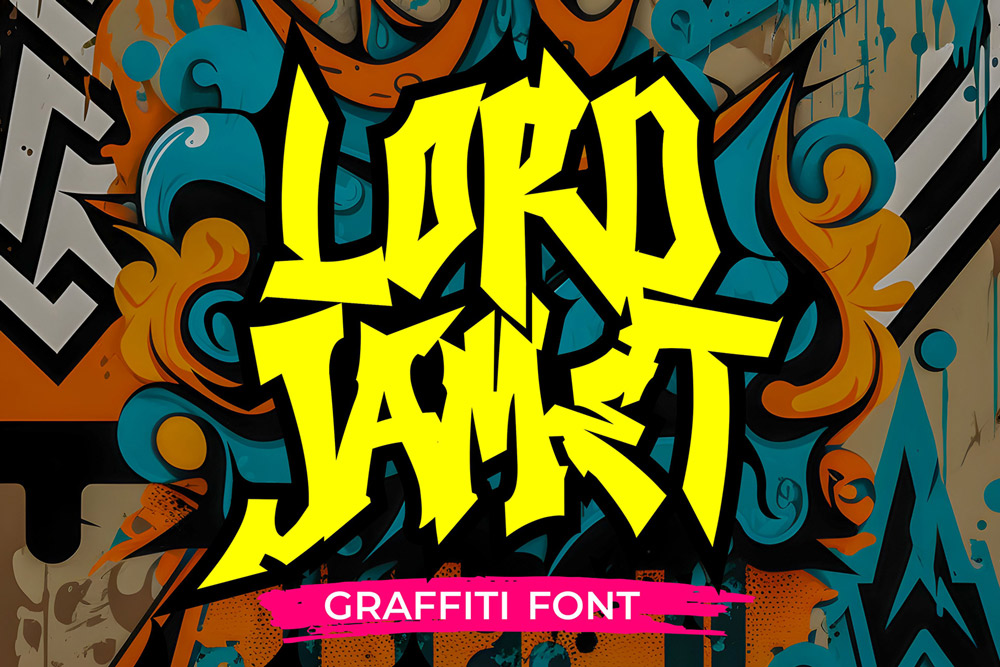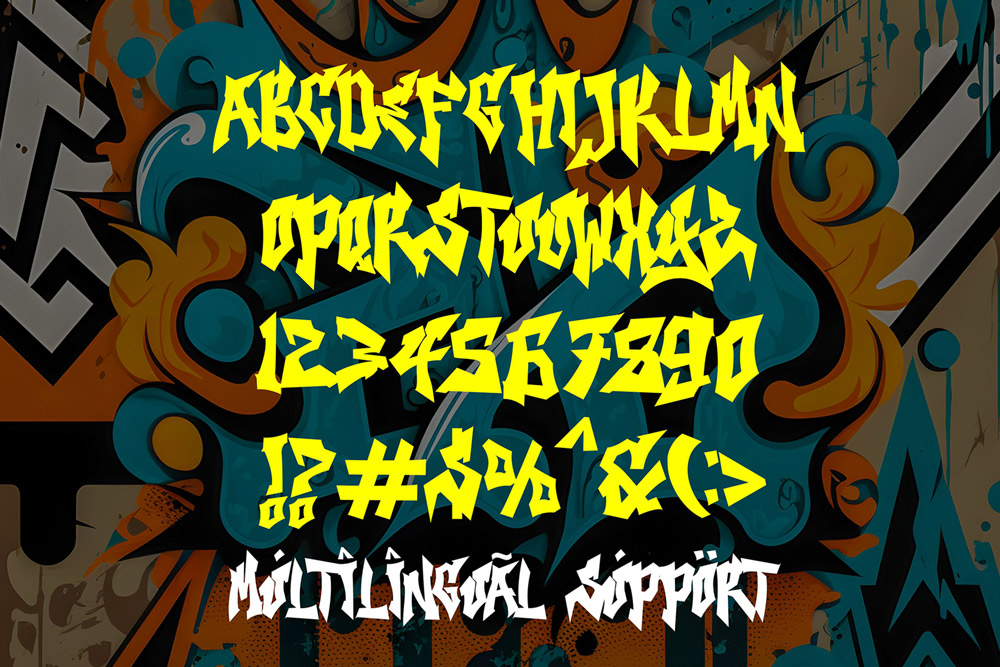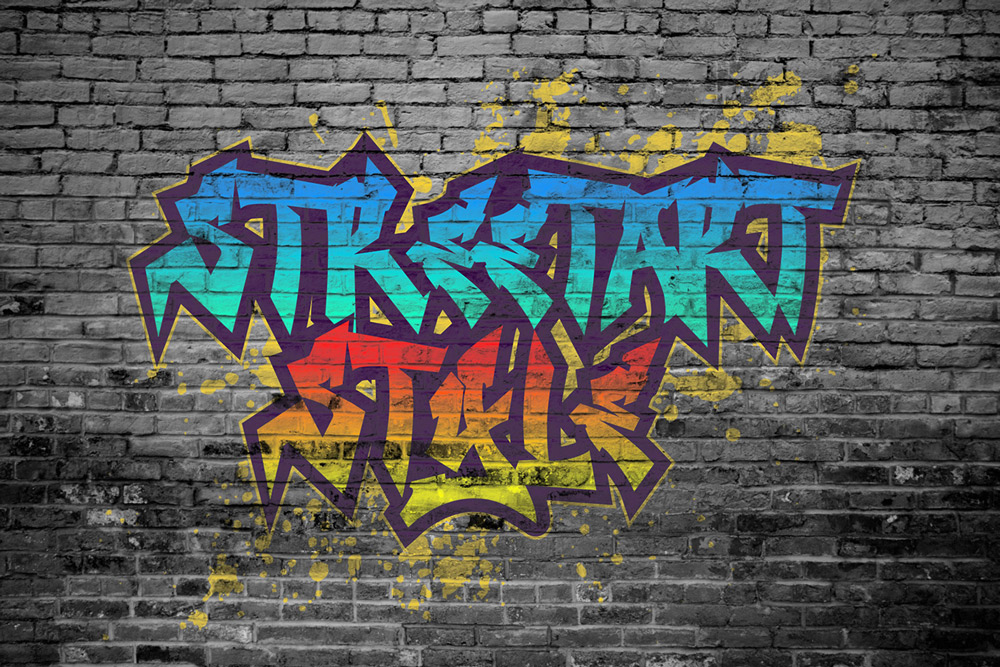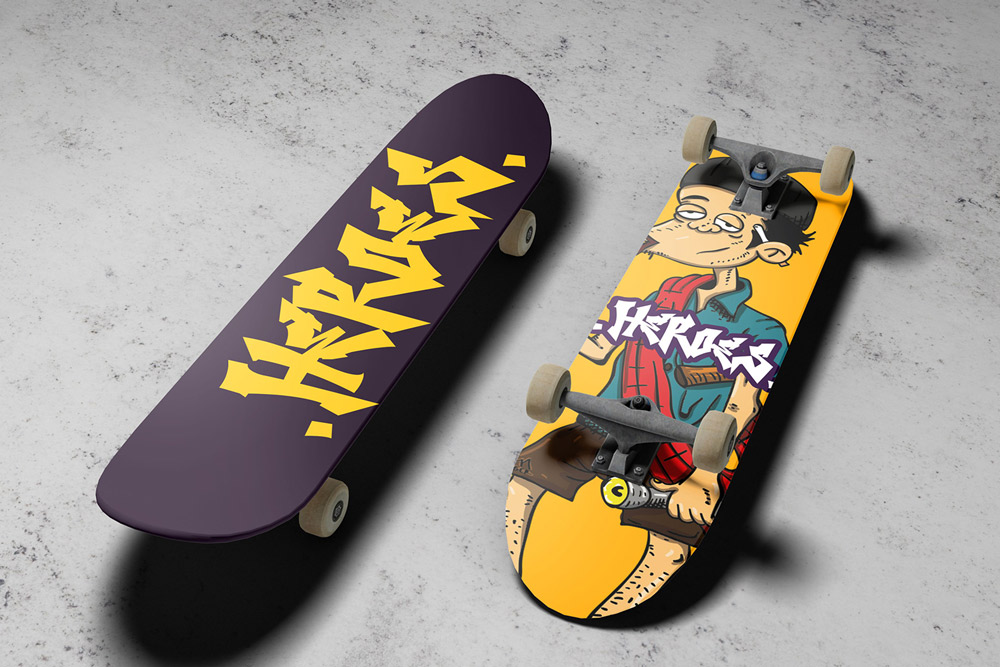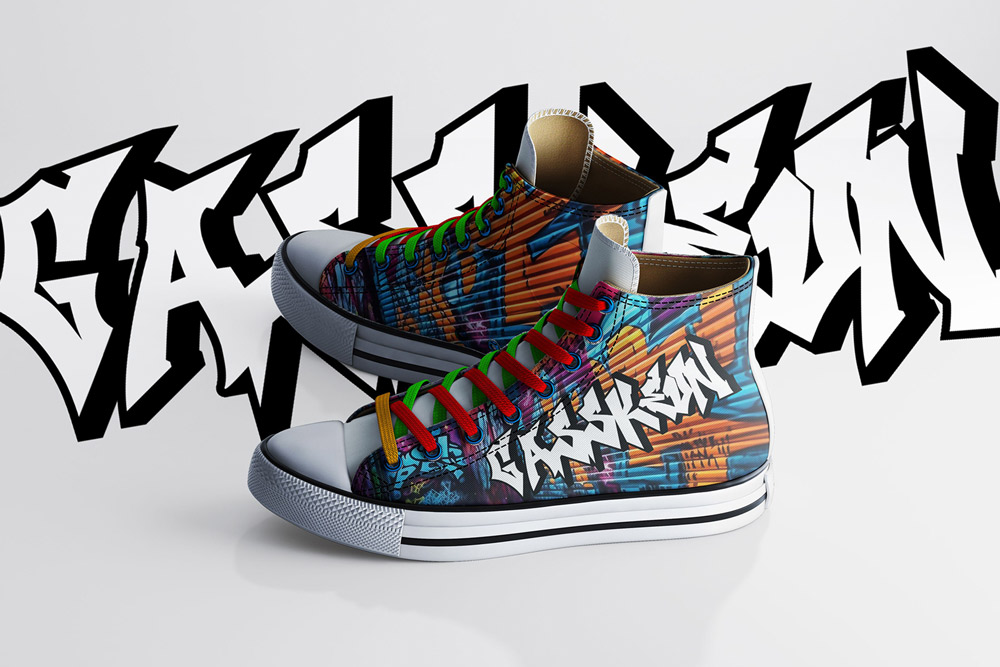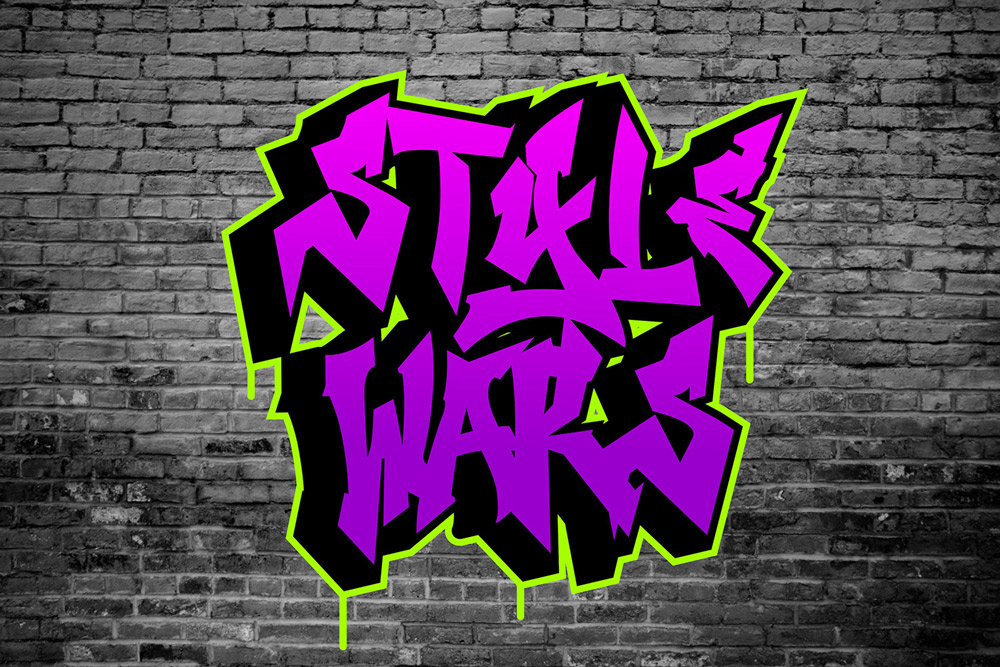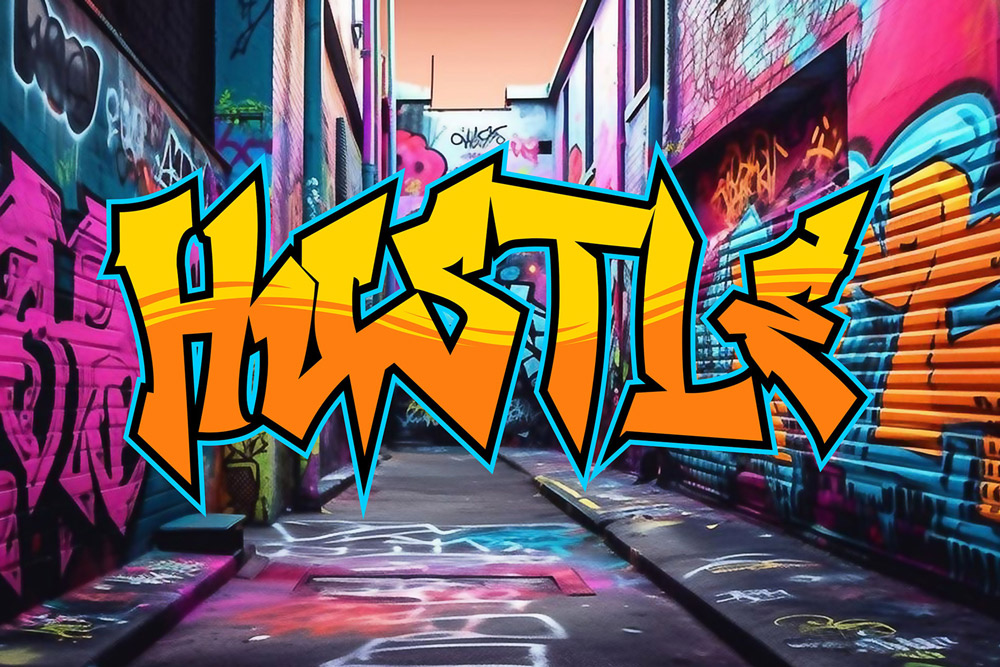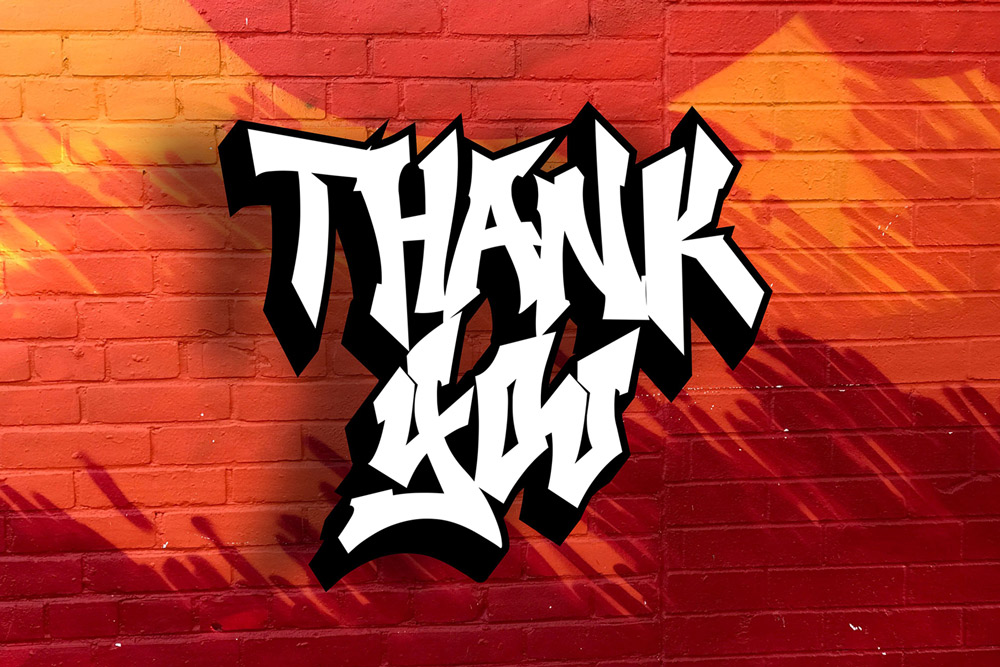
About Lord Jamet
Enter the world of expressive street art with Lord Jamet – Wild Graffiti Font, a bold and energetic typeface crafted for creators who want to bring authentic urban vibes into their designs. This graffiti font is inspired by raw street tagging culture, combining dynamic strokes, fluid letterforms, and edgy visual rhythm to create a typeface that feels alive and rebellious. Whether you’re designing posters, streetwear branding, album covers, or digital content, this wild graffiti font ensures your message stands out with attitude and impact.
Every detail in Lord Jamet Graffiti Font is carefully designed to reflect the unpredictable and free-flowing nature of graffiti art. The strokes are intentionally bold and slightly exaggerated, giving the font a handcrafted feel that mirrors real spray-painted lettering. This urban graffiti font allows designers to instantly inject personality into their work, making it ideal for projects that demand bold visual storytelling and creative expression.
As a modern graffiti display font, Lord Jamet is not just about aesthetics—it is also built for usability. Despite its artistic style, the characters maintain a strong level of readability, allowing you to use this font across various design applications without compromising clarity. From large headlines to stylized logos, this graffiti font for branding performs beautifully in both print and digital formats.
Uppercase Characters
Lord Jamet – Wild Graffiti Font includes a full set of uppercase characters that are bold, expressive, and full of movement. Each letter is uniquely shaped to maintain the organic flow of graffiti while ensuring consistency across the entire alphabet. This uppercase graffiti font is perfect for creating powerful headlines, logos, and typographic compositions that demand attention.
The uppercase design emphasizes impact and visibility, making it especially suitable for streetwear designs, posters, and bold branding projects. With this graffiti font uppercase set, you can create typography that feels energetic and visually dominant.
Multilingual Support
One of the standout features of Lord Jamet Graffiti Font is its multilingual support, allowing designers to create projects for a global audience. This graffiti font with multilingual support includes a wide range of characters that accommodate various languages, ensuring your designs remain consistent and accessible across different regions.
Whether you’re working on international branding, social media campaigns, or cross-cultural creative projects, this urban graffiti font provides the flexibility you need. It’s designed to break language barriers while maintaining its strong visual identity.
Numbers and Punctuation
To maximize usability, Lord Jamet – Wild Graffiti Font includes a complete set of numbers and punctuation. Each element is crafted to match the bold and expressive style of the main characters, ensuring visual harmony throughout your design.
This feature makes the font highly versatile for different types of content, including pricing graphics, event posters, and digital interfaces. With consistent styling across letters, numbers, and symbols, this graffiti typeface ensures a cohesive and professional look in every project.
- Authentic and bold wild graffiti font style
- Complete uppercase character set
- Full numbers and punctuation support
- Wide multilingual support
- Perfect for branding, posters, streetwear, album covers, and social media
- High-impact design with strong visual presence
- Optimized for both print and digital use
- Unique handcrafted graffiti-inspired letterforms
Why Designers Love It
Designers love Lord Jamet – Wild Graffiti Font because it offers the perfect balance between artistic freedom and professional usability. This graffiti font for designers stands out with its bold personality, allowing creatives to produce eye-catching visuals that feel authentic and modern.
Unlike generic fonts, this urban graffiti font carries a distinctive style that reflects real street culture. It gives designers the ability to create work that feels raw, expressive, and full of character. Whether you’re building a brand identity or designing promotional materials, this graffiti display font helps you communicate emotion and attitude effortlessly.
Another reason why this graffiti font is highly محبوب among creatives is its versatility. It adapts well to different design needs, from edgy streetwear graphics to contemporary digital content. The font’s strong visual identity ensures that your designs remain memorable and impactful.